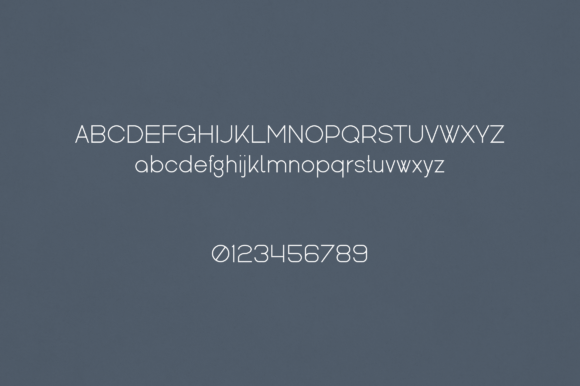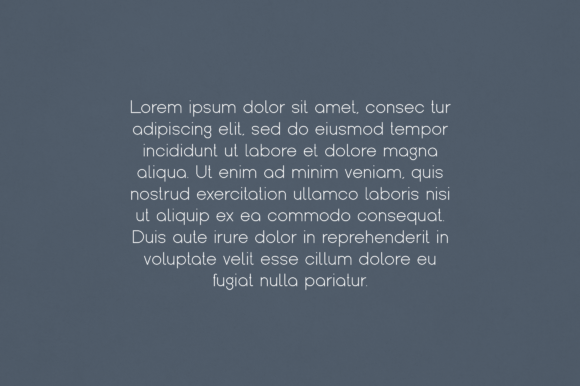
Discover the Elegance of Hadley Font: Elevate Your Designs with a Unique Sans Serif Typeface
In the world of typography, finding the perfect font that combines elegance, versatility, and uniqueness can be a daunting task. However, for designers and crafters looking to elevate their projects, Hadley Font emerges as a beacon of sophistication and style. This article delves into the characteristics, benefits, and applications of Hadley Font, a sans serif typeface that promises to transform your designs with its distinctive charm.
The Essence of Hadley Font
Hadley Font is described as an elegant and versatile sans serif font, capable of making any typography truly unique. Its design ensures that it can enchant every logo, branding element, headline, or plain text, turning ordinary designs into extraordinary ones. The beauty of Hadley lies in its simplicity and the sophisticated feel it imparts to any project it’s a part of.
One of the standout features of Hadley Font is its incredible versatility. This font is not limited to a specific design or medium; instead, it can be seamlessly integrated into various projects. Whether you’re working on branding projects, home-ware designs, product packaging, or magazine headers, Hadley Font proves to be an excellent choice. Moreover, its stylish appearance makes it perfect for use as a text overlay on any background image, adding a touch of elegance to your visual creations.
Applications of Hadley Font
The applications of Hadley Font are vast and varied. Here are a few areas where this font can make a significant impact:
- Branding Projects: Establish a strong brand identity with Hadley Font’s unique and elegant style. Its distinctive look can help your brand stand out in a crowded market.
- Home-Ware Designs: Add a touch of sophistication to your home-ware designs. Whether it’s product labels, packaging, or promotional materials, Hadley Font brings a level of refinement that’s hard to achieve with standard fonts.
- Product Packaging: Elevate your product packaging with a font that exudes elegance and style. Hadley Font can make your products look more premium and appealing to potential customers.
- Magazine Headers: Create stunning magazine headers that capture the essence of your publication. Hadley Font’s versatility shines in editorial design, making it perfect for article titles, section dividers, and more.
- Text Overlay: Use Hadley Font as a stylish text overlay on background images for web pages, social media posts, or marketing materials. Its elegant appearance ensures that your text is not only readable but also visually appealing.
Why Choose Hadley Font?
Choosing Hadley Font for your design projects comes with numerous benefits:
- Uniqueness: Stand out from the crowd with a font that offers a fresh and distinctive look.
- Elegance: Add a touch of sophistication to your designs, making them more engaging and refined.
- Versatility: Use Hadley Font across various projects and mediums, from digital designs to print materials.
- Readability: Despite its elegant design, Hadley Font maintains excellent readability, ensuring your message is conveyed clearly.
Hadley Font is a game-changer for designers and crafters looking to infuse their projects with elegance, uniqueness, and versatility. Its sans serif design, coupled with its sophisticated feel, makes it an ideal choice for a wide range of applications. Whether you’re aiming to create a strong brand identity, design captivating product packaging, or simply add a stylish text overlay to your images, Hadley Font is up to the task. Embrace the elegance of Hadley Font and watch your designs transform into visually stunning creations that leave a lasting impression.